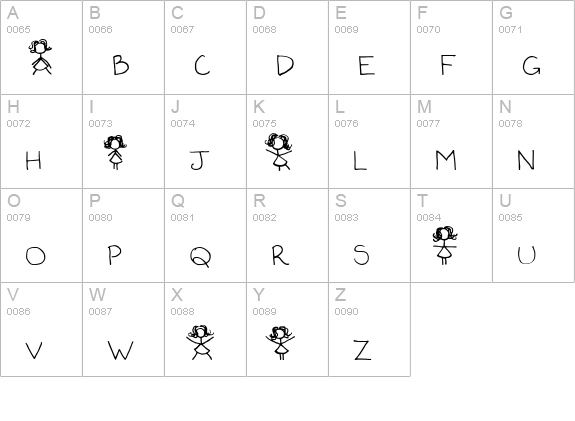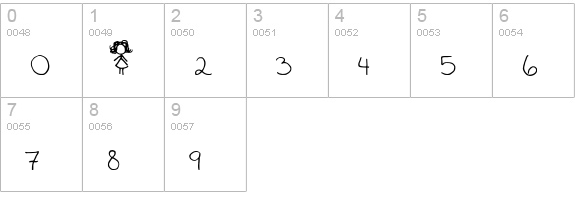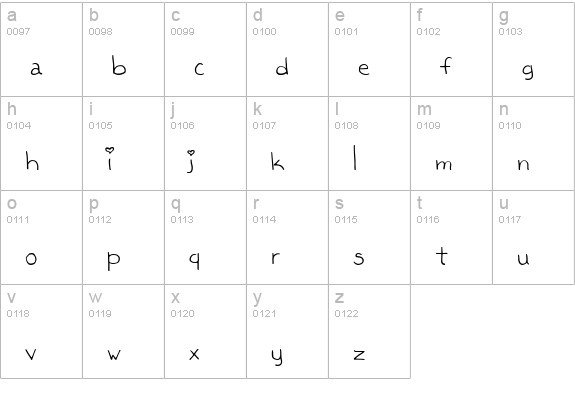
Kaileen Font Details
Introducing Kaileen Font, a beautifully crafted typeface that effortlessly combines elegance and charm. With its delicate curves and graceful strokes, this font will add a touch of sophistication to any design project. Kaileen Font exudes a timeless appeal, making it perfect for a wide range of applications. Whether you're working on branding, packaging, invitations, or editorial designs, this versatile font will elevate your creations to new heights. But what sets Kaileen Font apart is not just its stunning aesthetics, but also its accessibility. This font is offered free of charge, allowing designers and creatives from all walks of life to enjoy its beauty without any limitations. It is freely available to download at FontsMarket.com, making it easily accessible to anyone in need of a refined and elegant typeface. With Kaileen Font, you can unleash your creativity and bring your vision to life. Its clean and legible characters make it a breeze to read, ensuring that your message is conveyed with clarity and style. Whether you're designing a logo, a website, or a print advertisement, Kaileen Font will make a lasting impression on your audience. So why wait? Experience the beauty and versatility of Kaileen Font today. Download it for free at FontsMarket.com and let your designs shine with elegance and sophistication.